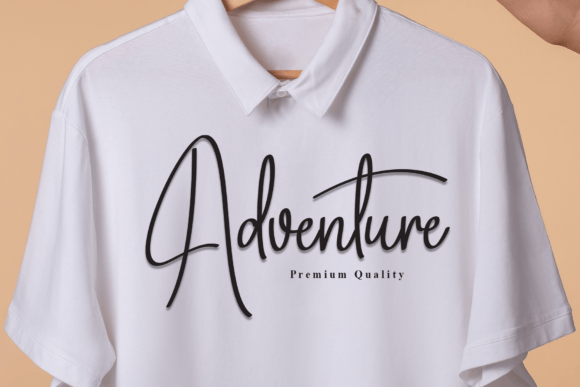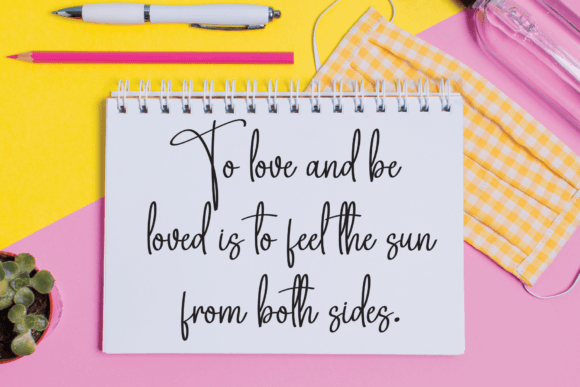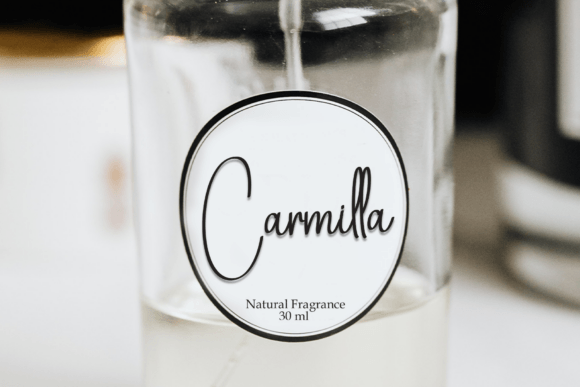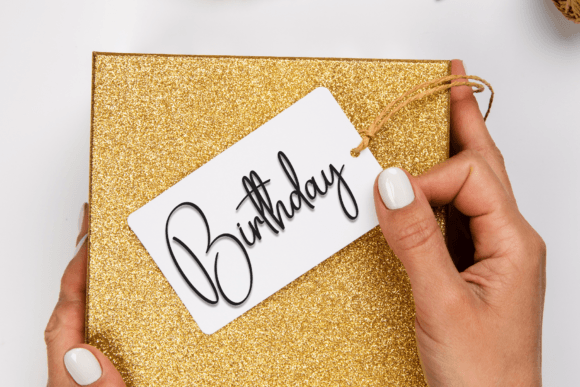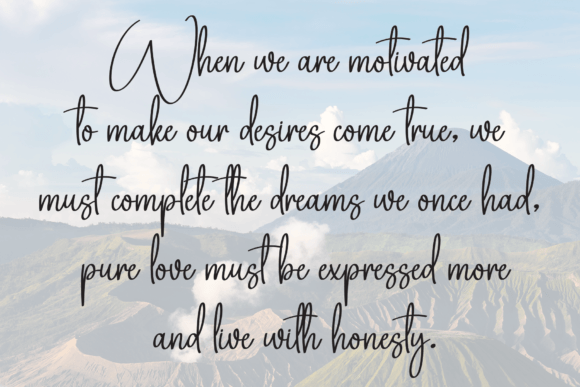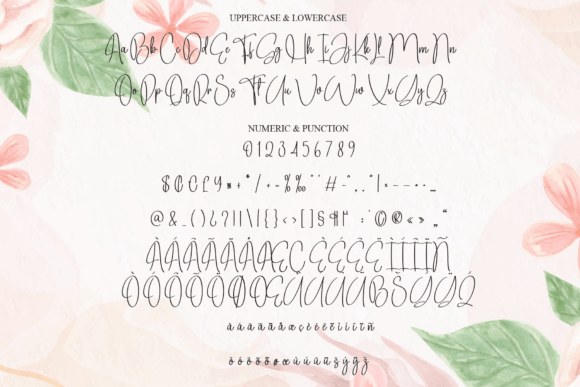
The Power of Gratitude: Elevate Your Designs with this Stunning Handwritten Script Font
I’ll never forget the time I was working on a wedding invitation project, and my client asked for a font that exuded elegance and sophistication. I scoured the internet, tried countless fonts, but nothing seemed quite right. That was until I stumbled upon Gratitude, a beautiful handwritten script font that instantly captured the essence of the occasion. In this article, I’ll share my experience with Gratitude, its features, and how to make the most of it in your designs.
Gratitude has quickly become one of my go-to fonts, and here’s why:
- ✨ Elegant and modern: Gratitude strikes the perfect balance between classic and contemporary, making it suitable for a wide range of projects.
- ✅ Effortless charm: The font’s flowing strokes and organic curves add a touch of warmth and sophistication to any design.
- 🌈 Versatile: Gratitude works beautifully for branding, invitations, social media, and more.
While Gratitude is an excellent font, it’s not without its quirks:
- 🤔 Limited multilingual support: While Gratitude supports some non-English characters, it’s primarily designed for English and similar languages.
- ⚠️ Occasional kerning issues: As with any font, you may encounter kerning issues, especially when using it at smaller sizes.
The Story Behind Gratitude
Gratitude was designed by a talented typographer who aimed to create a font that would evoke feelings of warmth, appreciation, and joy. Inspired by the beauty of handwritten scripts, the designer carefully crafted Gratitude to be both elegant and approachable. The result is a font that adds a personal touch to any project.
| What makes Gratitude suitable for branding? | Gratitude’s unique blend of elegance and modernity makes it an excellent choice for branding projects, as it helps create a lasting impression on customers. |
| Is Gratitude available in multiple weights? | Currently, Gratitude is available in a single weight, but its versatility and range of OpenType features make it suitable for various design applications. |